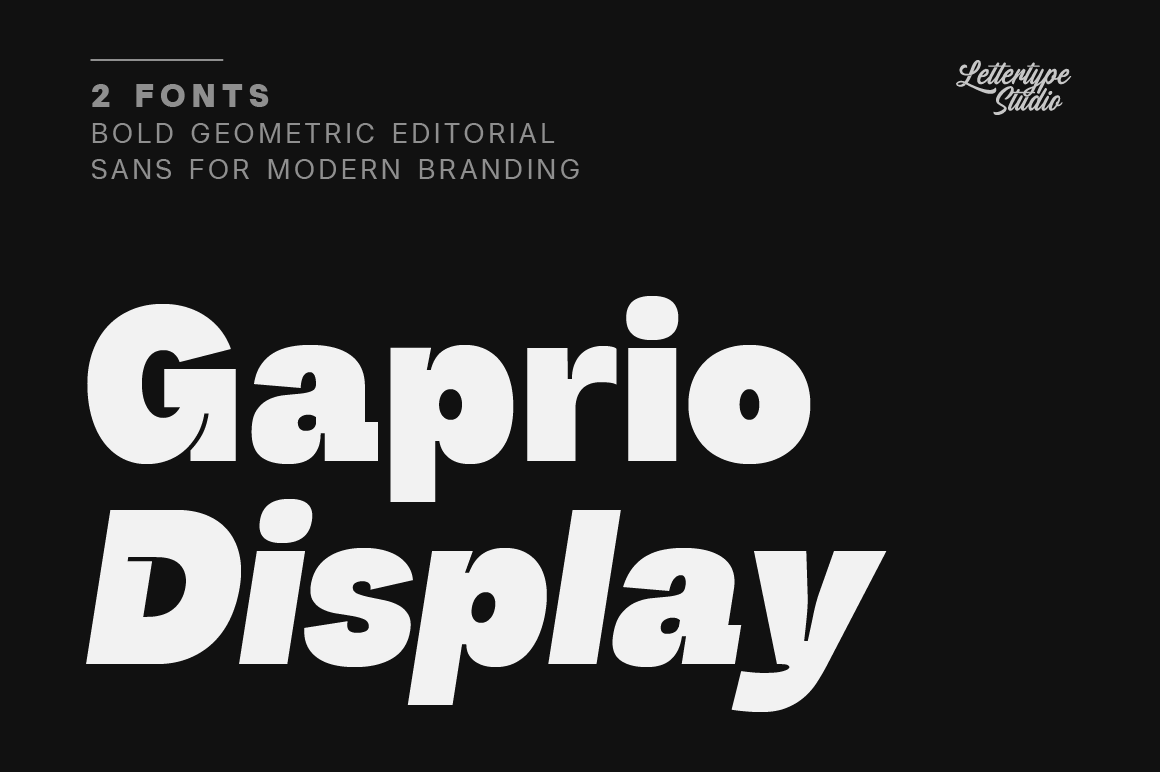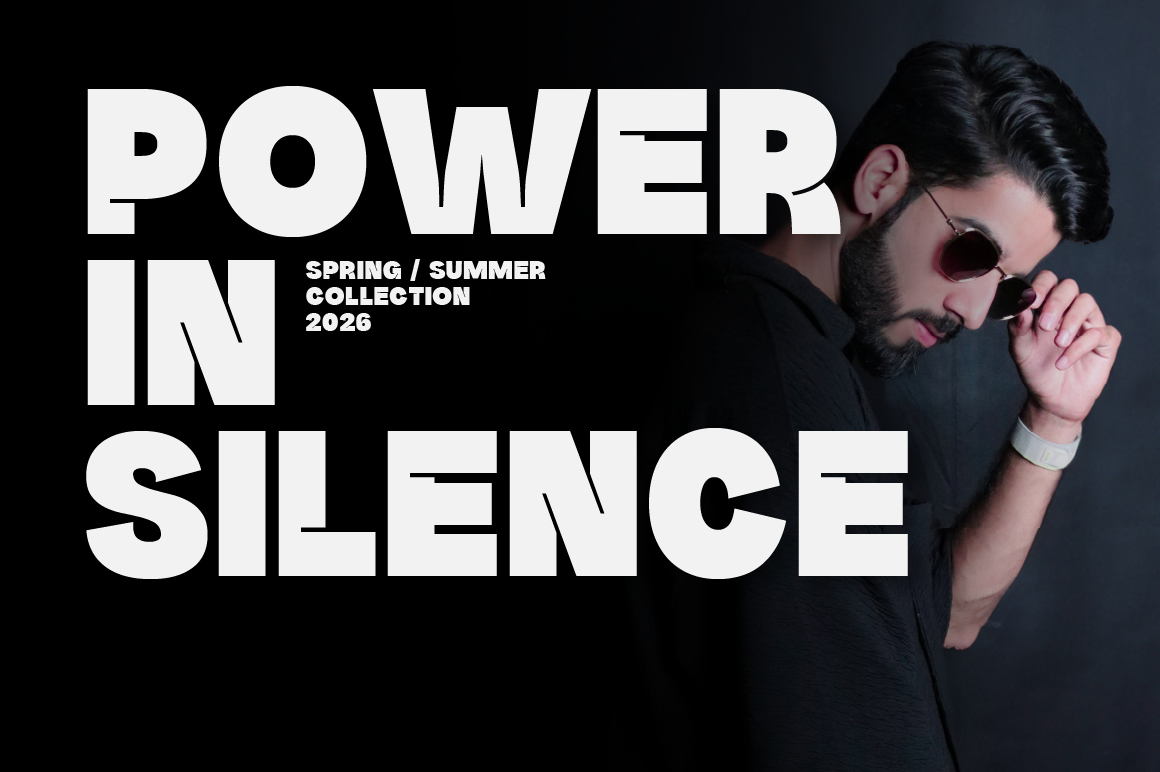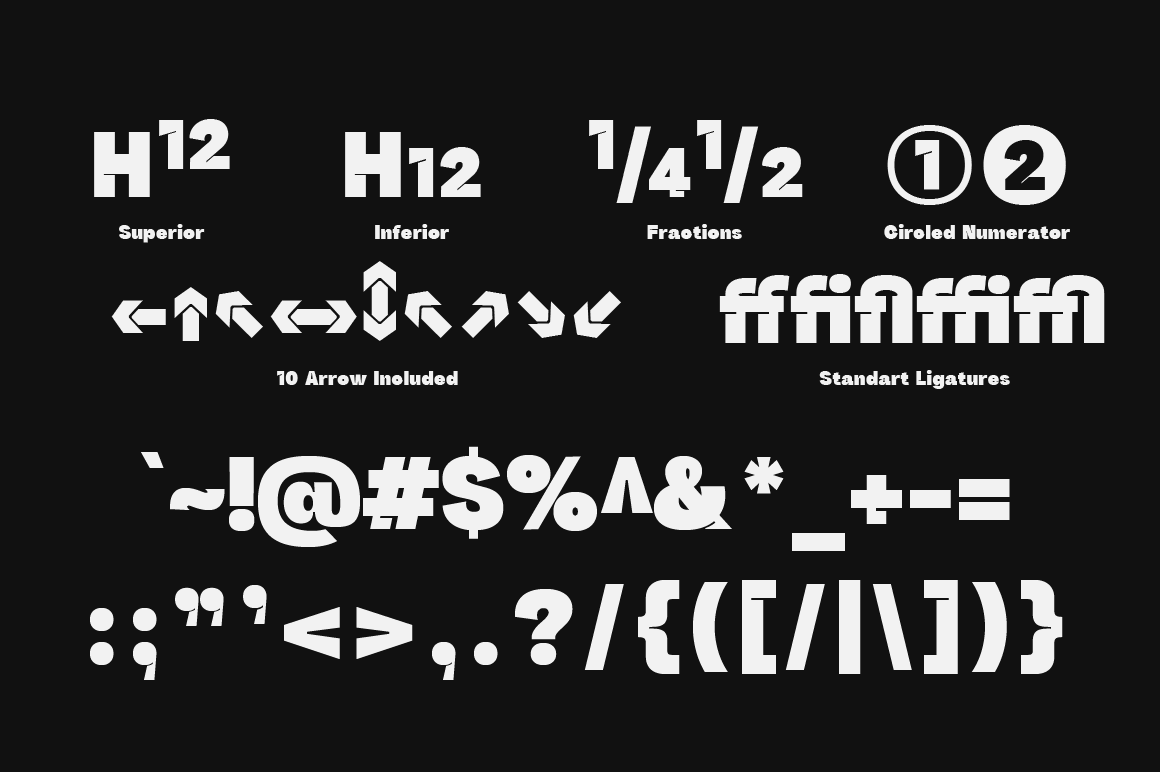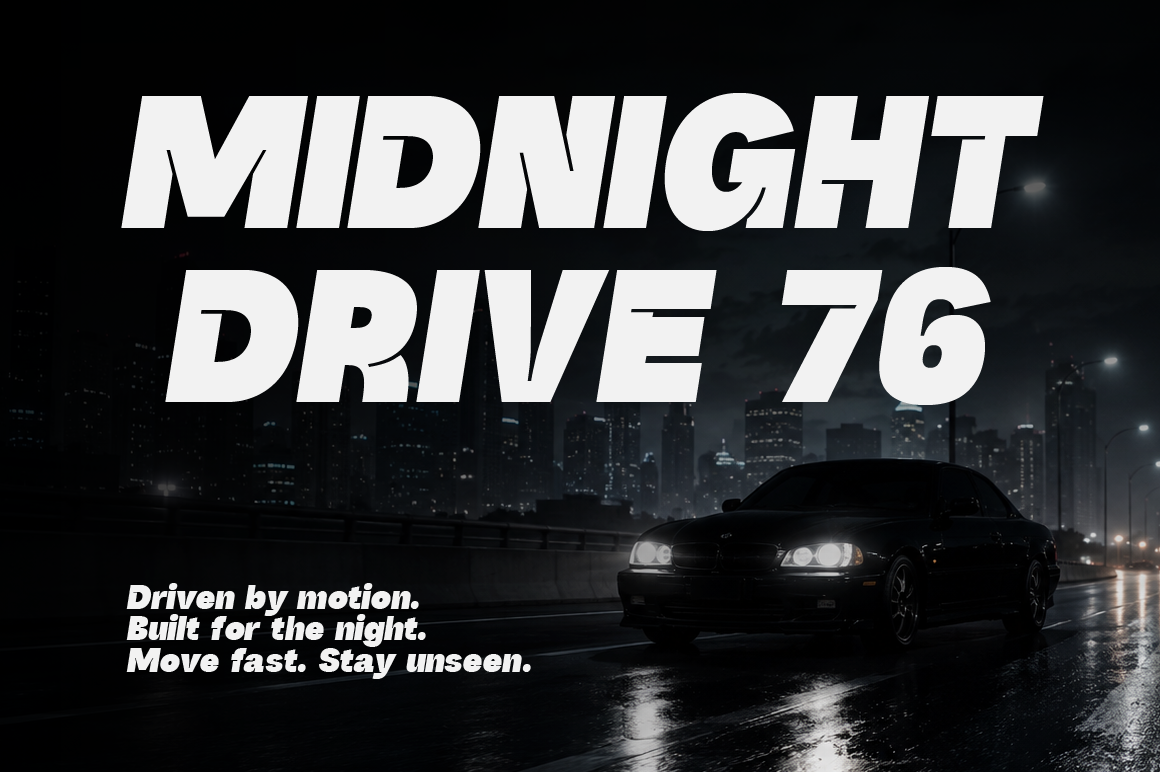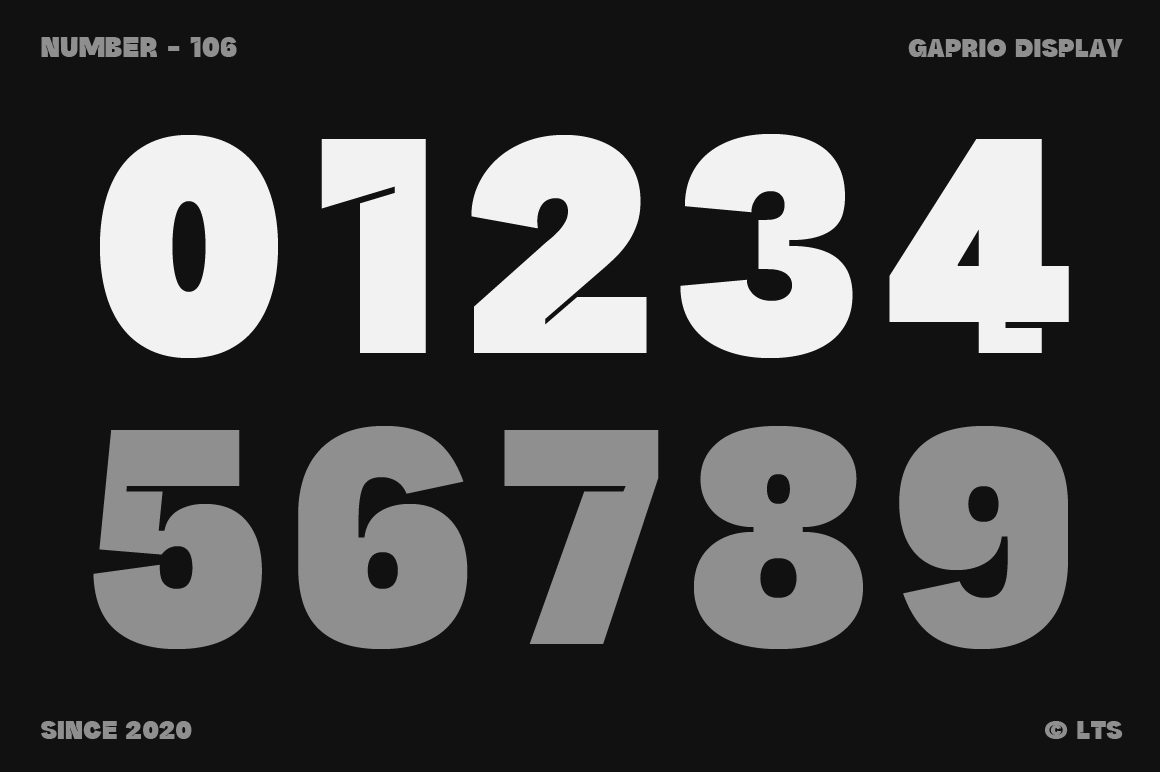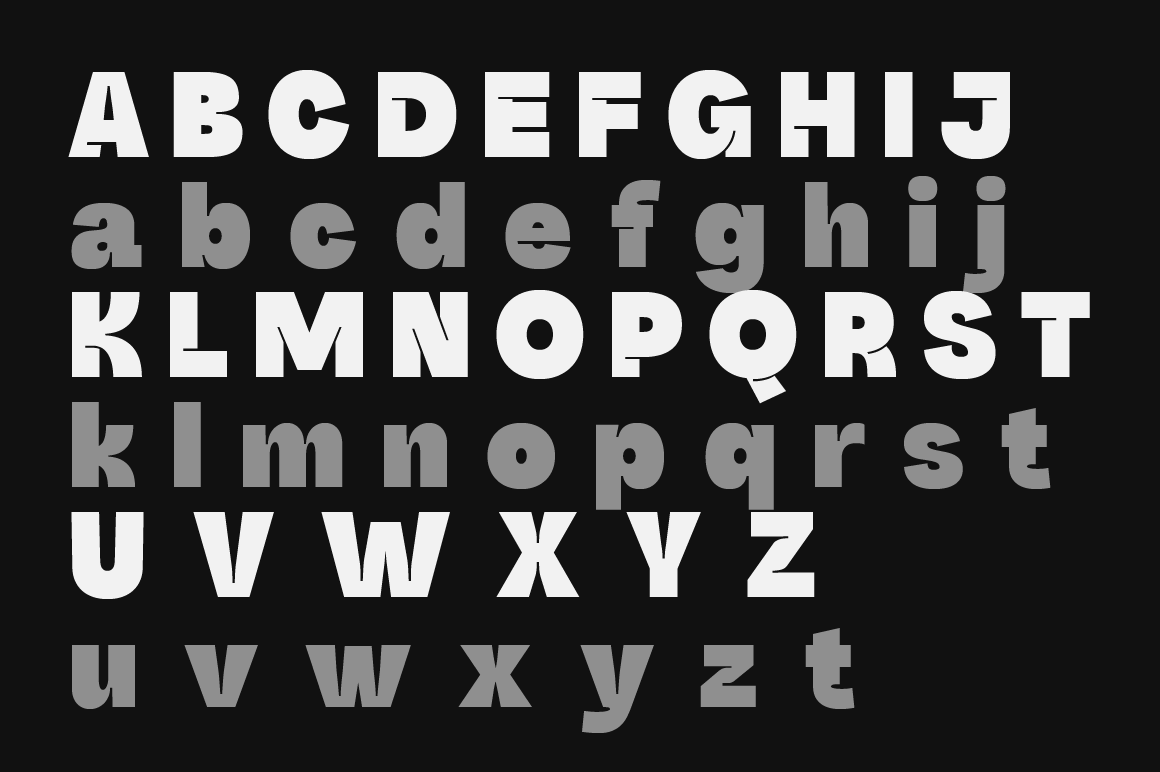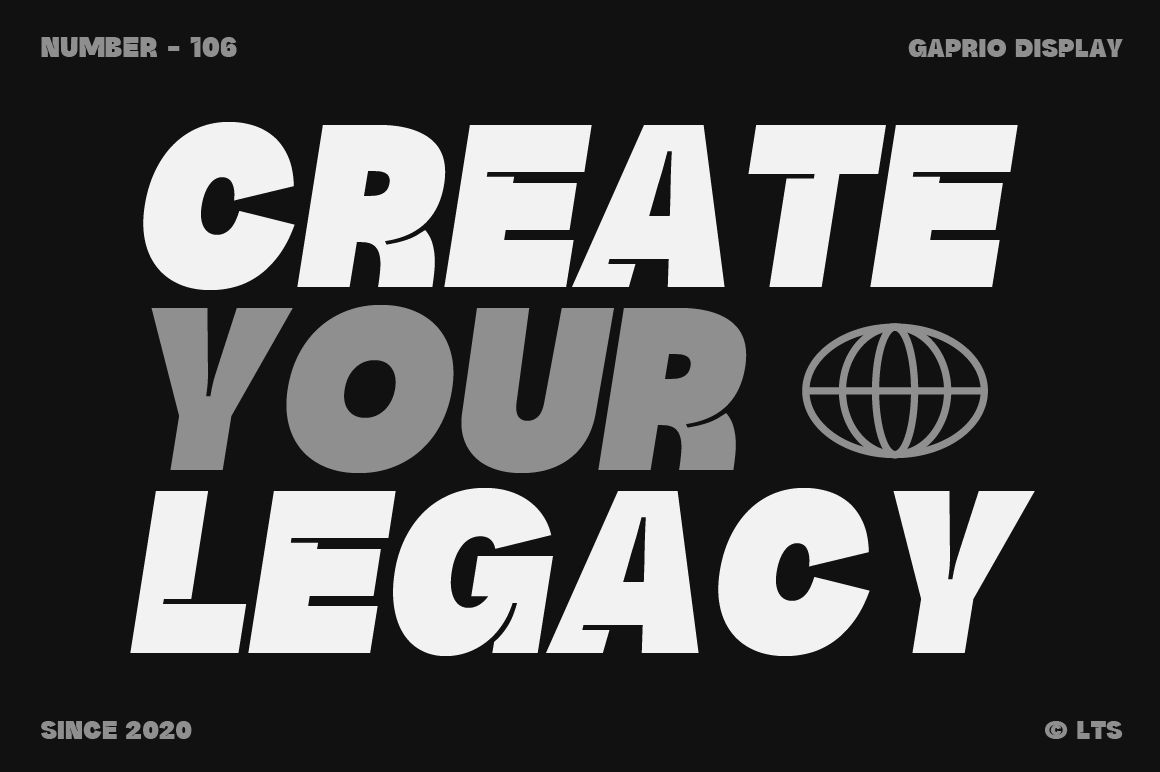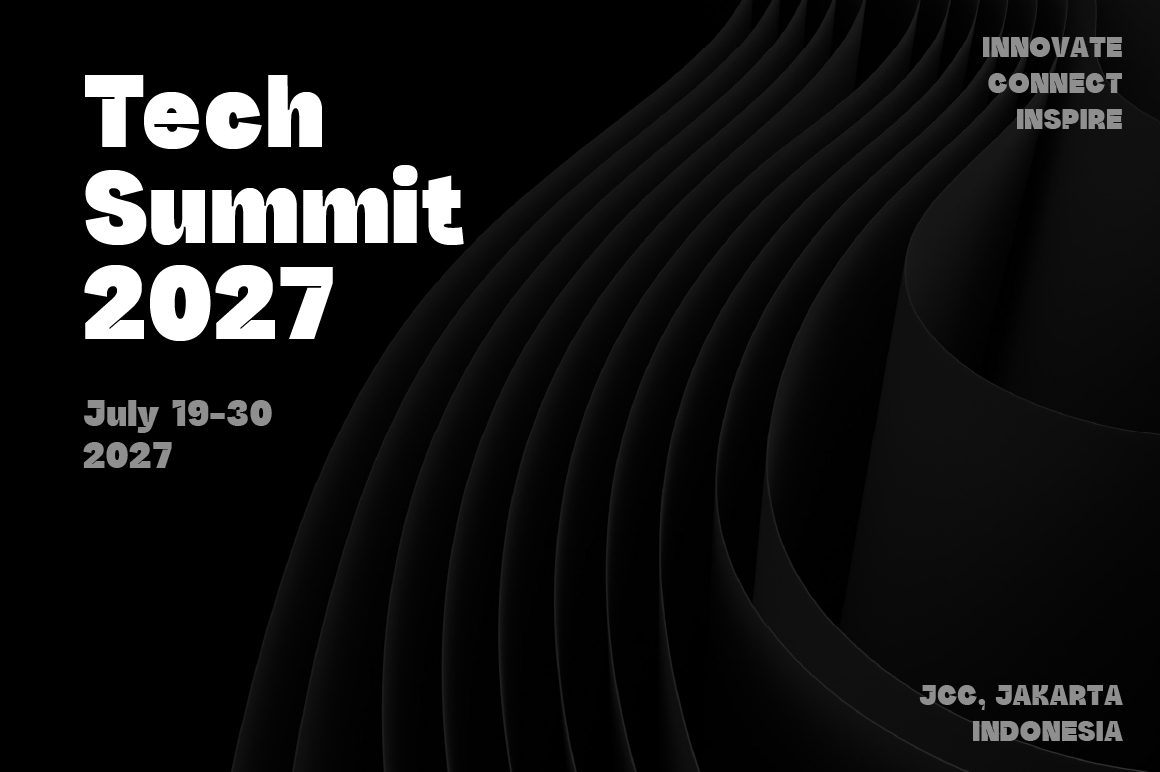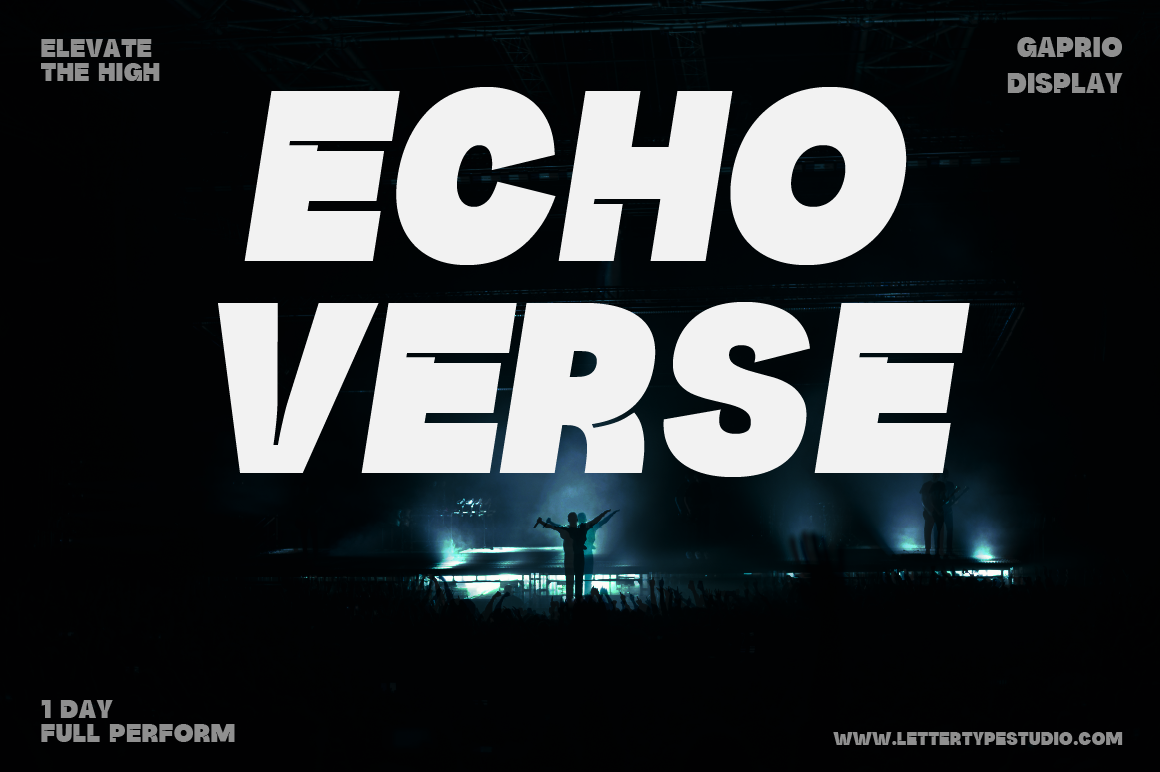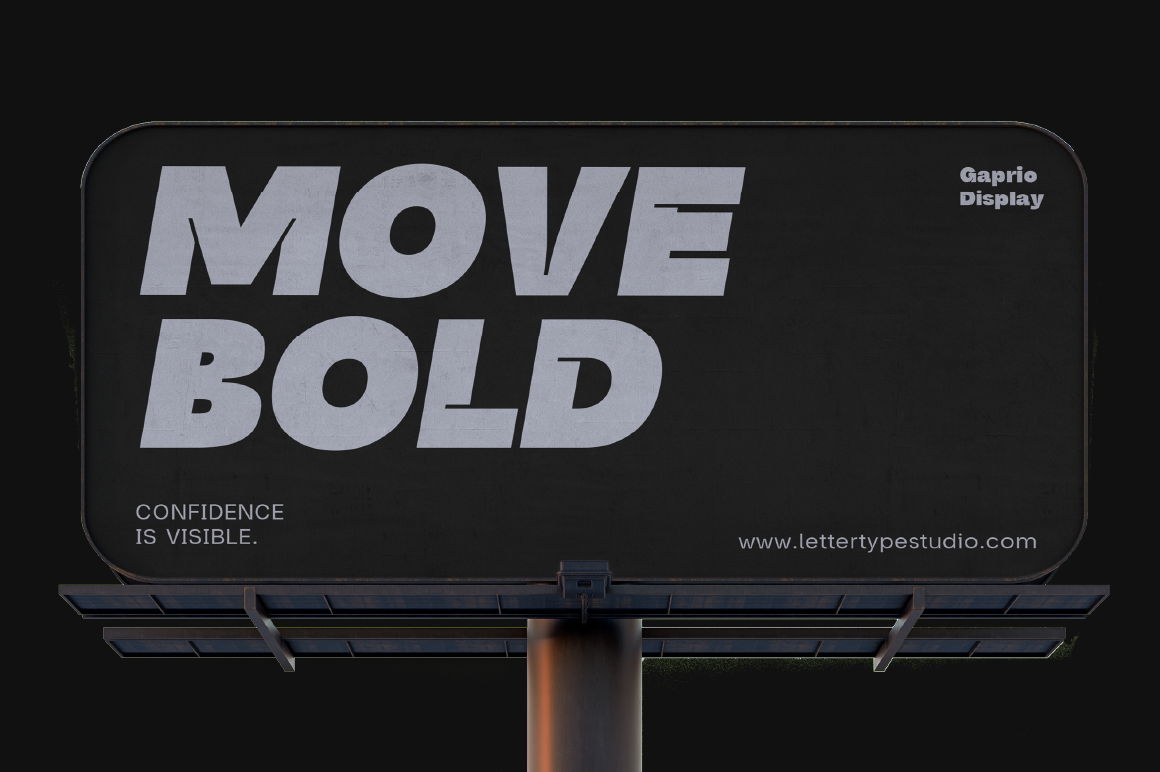
Gaprio Display represents the new wave of editorial-inspired display typography from Lettertype Studio. Created with a bold geometric foundation and expressive visual movement, the typeface is designed to stand out in modern creative industries where branding and visual identity require a stronger personality and sharper presence. The clean construction allows the font to feel premium and contemporary while still maintaining flexibility for commercial use.
The typeface performs exceptionally well in large-size applications such as headlines, magazine covers, fashion campaigns, music artwork, cinematic posters, sports branding, creative agency presentations, packaging design, and social media content. Every letterform is carefully shaped to create a strong visual rhythm, making compositions feel dynamic, energetic, and highly memorable.
Gaprio Display is especially suitable for designers searching for a modern display sans that feels stylish without becoming overly experimental. The font balances geometric precision with expressive editorial energy, resulting in a versatile display family that can adapt to luxury, fashion, sport, futuristic, and modern branding environments.
Gaprio Display Features:
- 2 Styles
- Upright & Italic
- 502 Glyphs Total
- 270+ Languages Support
Perfect For:
- Editorial & Magazine Headlines
- Fashion & Luxury Branding
- Sports & Streetwear Campaigns
- Posters & Music Artwork
- Creative Agency Visual Identity